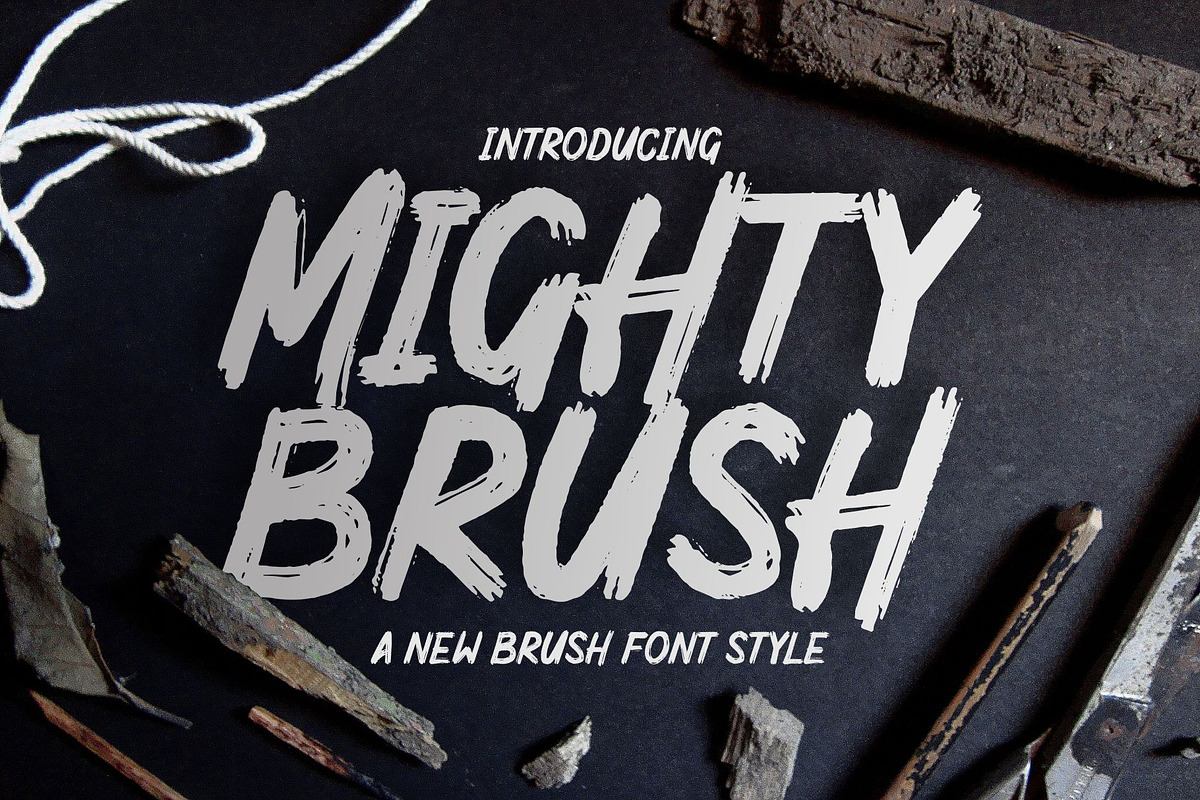
MIGHTY BRUSH Fonts Free Download
Unleash bold energy in your designs with MIGHTY BRUSH Fonts Free Download — a dynamic brush-style typeface that commands attention. With every stroke packed with motion and power, this font is perfect for sports branding, action-packed posters, music covers, social media headlines, and edgy apparel designs.
MIGHTY BRUSH offers raw expression and fearless style, blending artistic brush textures with sharp clarity. It includes uppercase letters, numbers, punctuation, and multilingual support — giving you the creative flexibility to make a big impact across any platform.